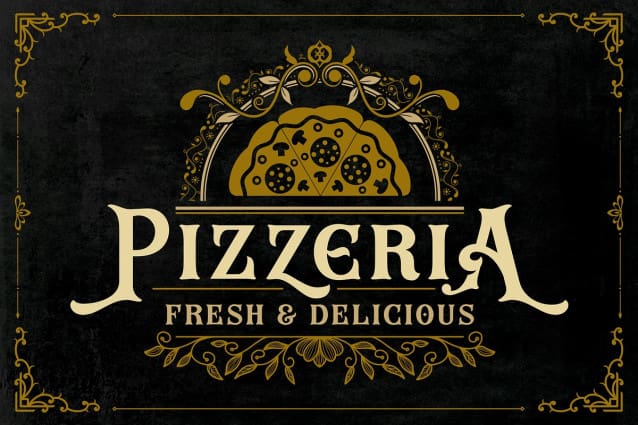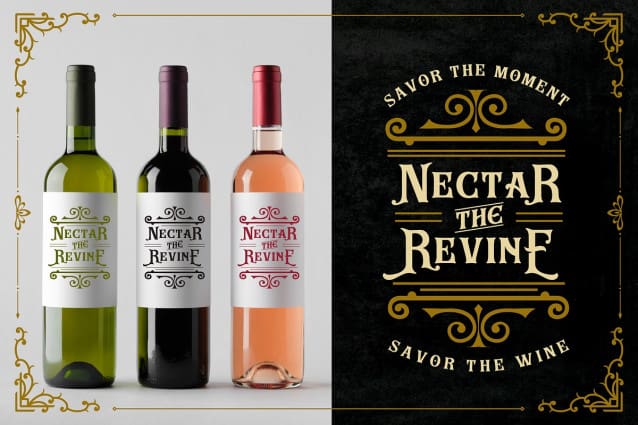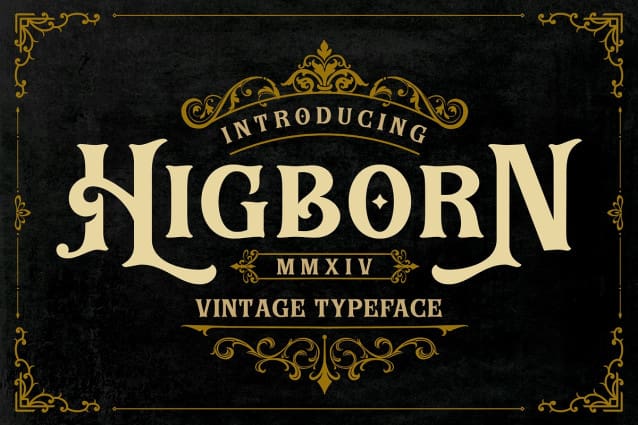
Higborn Vintage Font
Higborn Vintage Font a vintage typeface that brings timeless elegance and classic charm to your designs. Inspired by traditional typography, “Higborn” features meticulously crafted letterforms that evoke a sense of nostalgia and sophistication. Perfect for logos, packaging, posters, and branding, this font adds a touch of vintage allure to any project. Let “Higborn” infuse your designs with the rich, historical character of a bygone era, making them truly stand out.